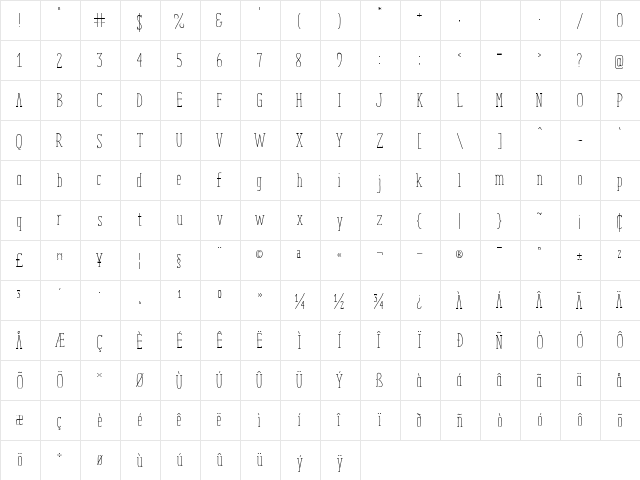
ENYO Serif Light Light
| Foundry | Julia Martinez Diana, Antipixel |
| Designer | Julia Martinez Diana, Antipixel |
Design Context for ENYO Serif Light Typeface
ENYO Serif Light carries the refined structure of traditional serif typography, with bracketed terminals and considered proportions that communicate credibility and craft. Its slender proportions lend an understated elegance to any composition.
Pro Tip: Use ENYO Serif Light with generous line-spacing for the most refined reading experience — its light weight benefits from room between lines.